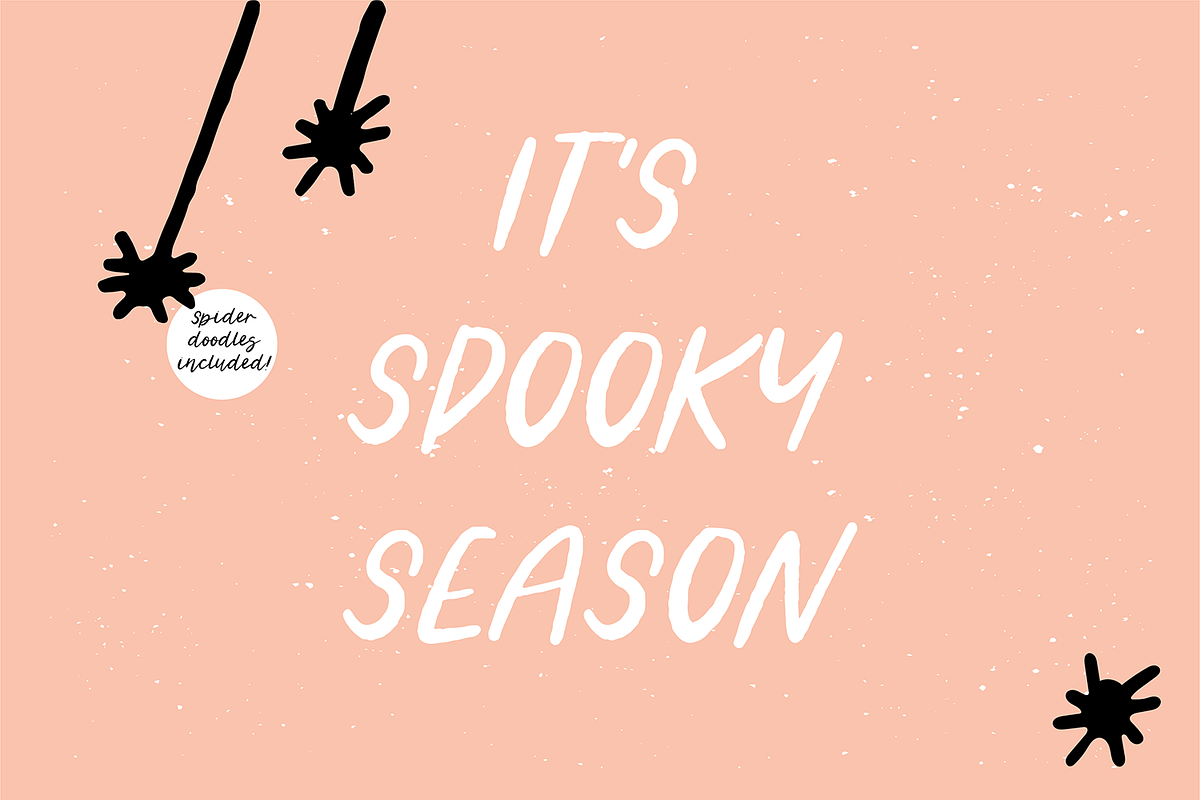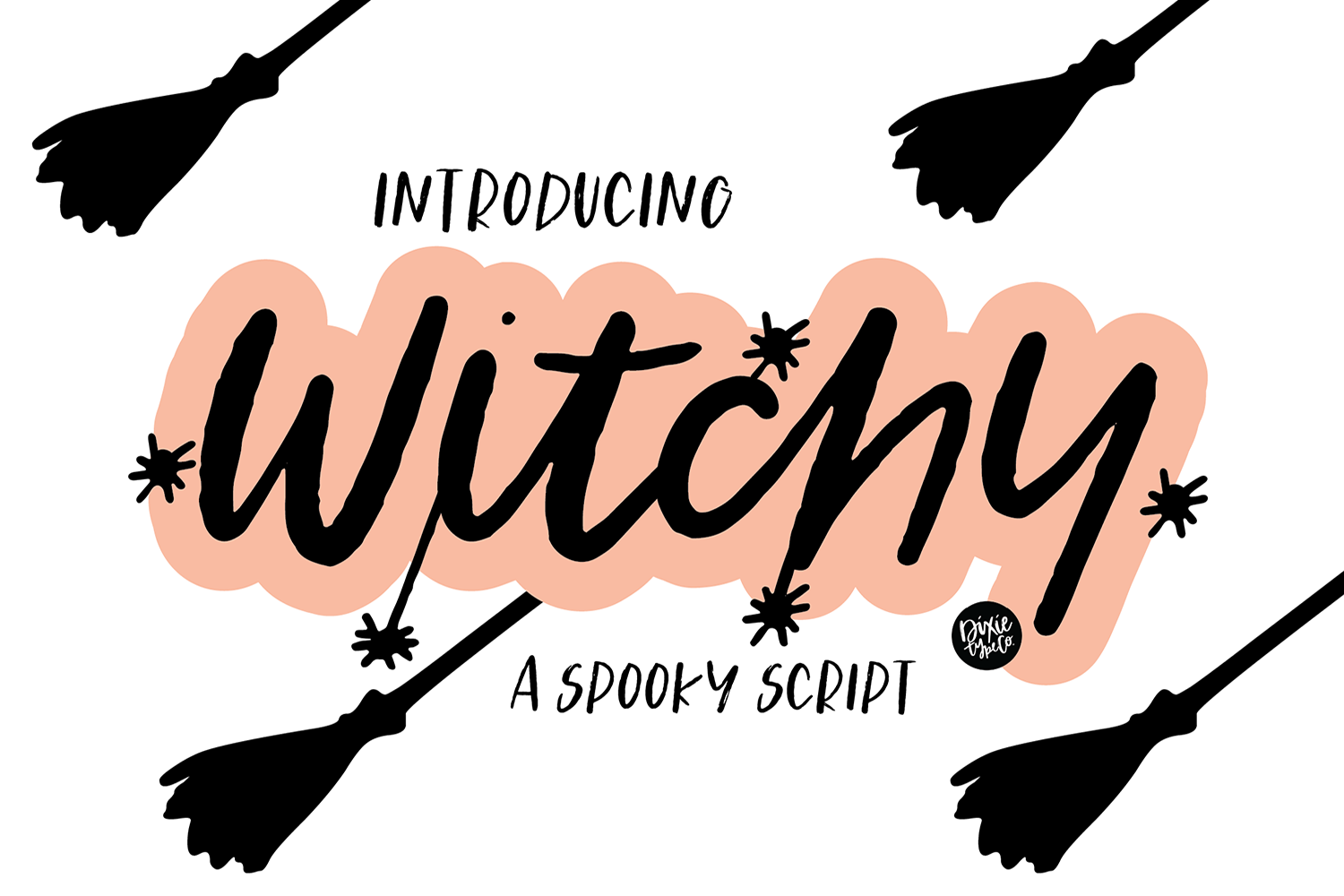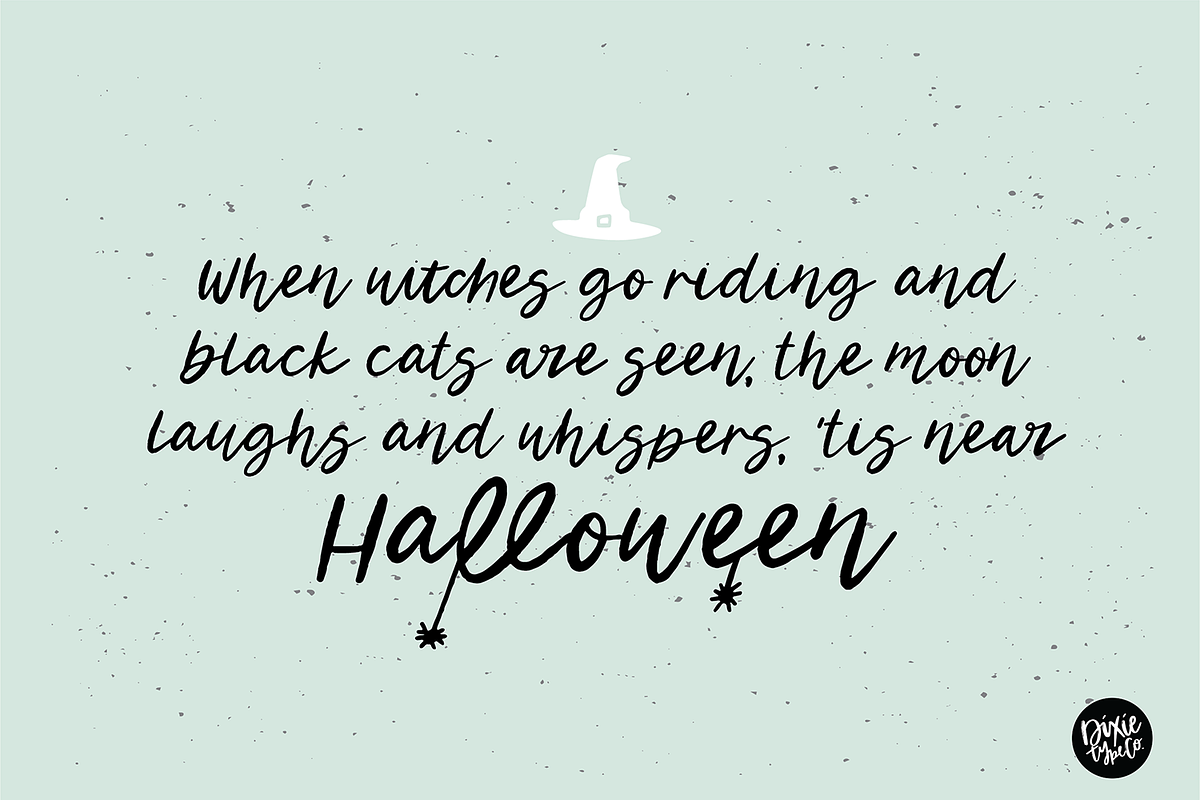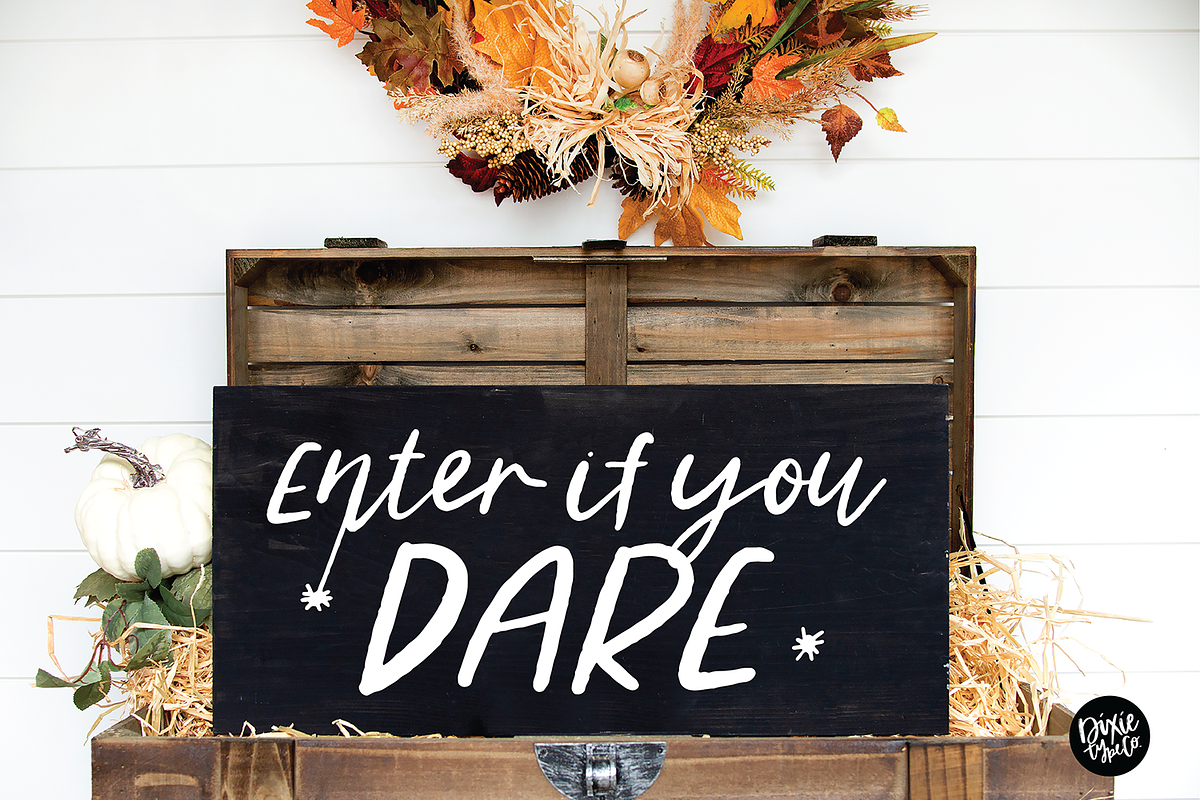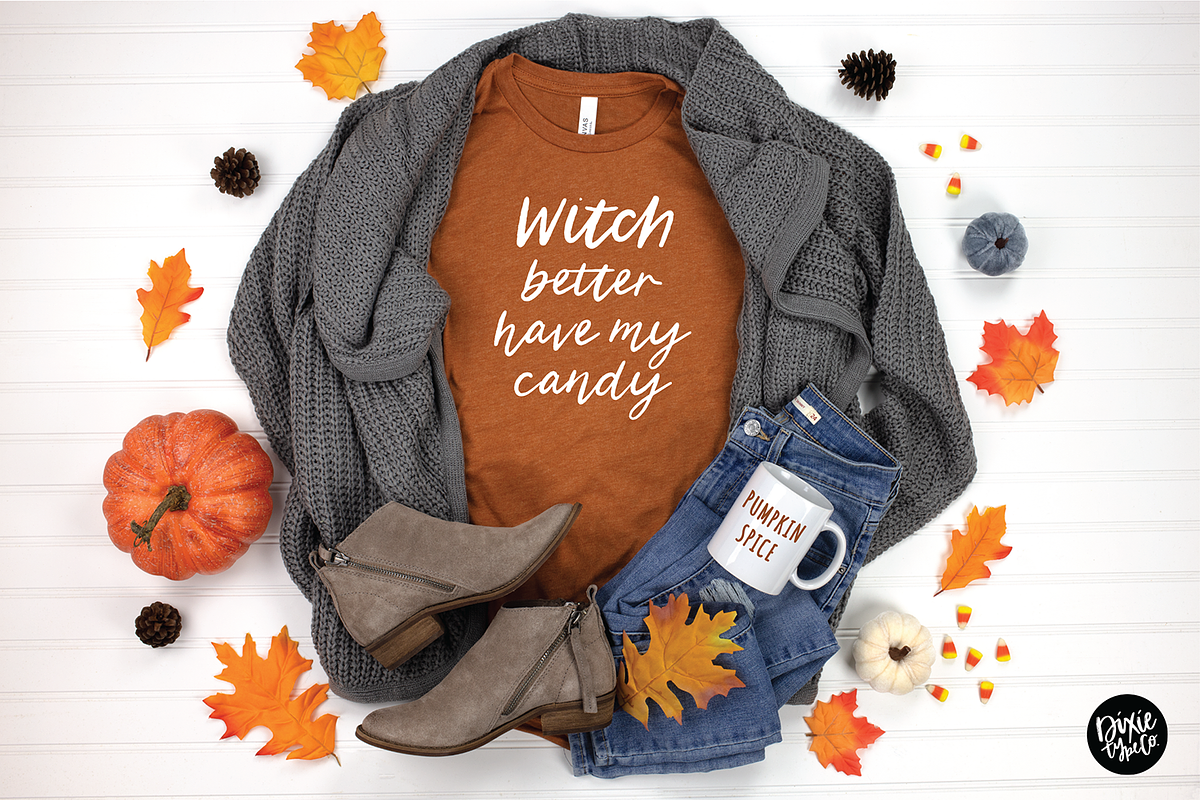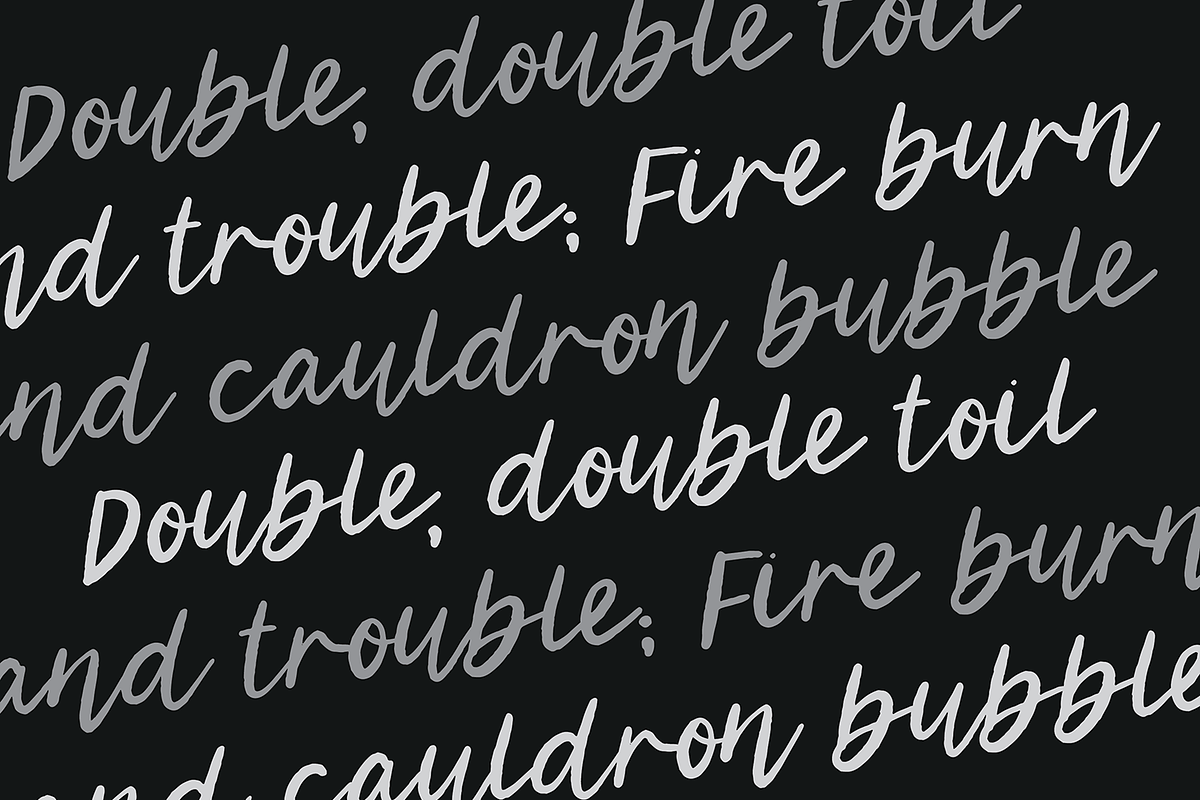
WITCHY a Halloween Script Font
"Witchy" A Distressed Script Halloween Font
{ A typographic font hand lettered with love by Dixie Type Co. }
This is an installable font that will work great with your Halloween party invitations, web graphics, and other halloween decor. This font is cuttable, but keep in mind the edges are slightly distressed.
This font comes with upper and lowercase letters, numbers, basic punctuation, and 8 ligatures. Also includes 3 spider doodles.